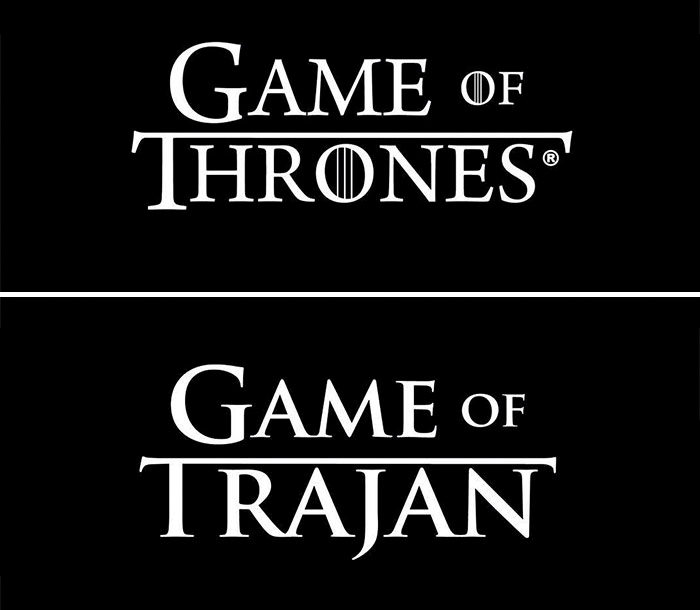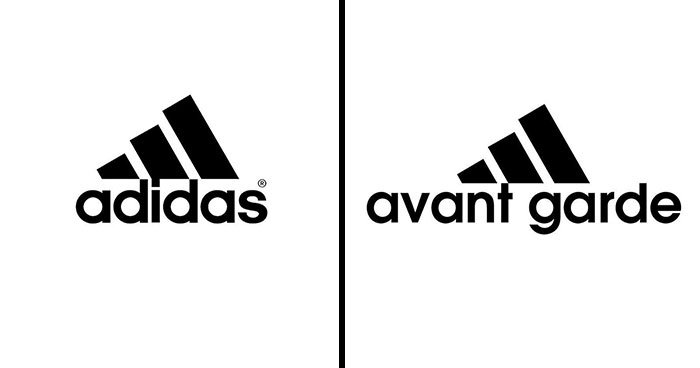
Artist Reveals What Fonts Were Used To Design Famous Logos (30 Pics)
There is no doubt that a logotype is the face of the company; that‘s why each element of some of the most iconic and well-recognizable logos is carefully thought out, even though they might seem simple. Often, simplicity is the key. Selecting the right typeface and font for a logo is crucial and combined with size, color, and graphic elements can help you stand out in a competitive environment. Each font can communicate a specific personality and tone—this is why it‘s particularly important to go with something that perfectly represents the brand‘s identity. Some brands use well-known and time-approved fonts such as Helvetica, Arial, and Gotham, while others create their custom designs often based on or inspired by classic fonts.
The Italian graphic designer, or logo guru, as one might say, Emanuele Abrate, runs an Instagram account all about logotypes. Last time we featured the artist on Bored Panda, he fixed the “World’s Worst Logos” (disclaimer: some of them are pretty ambiguous) by redesigning them in a more appropriate and sleek way. This time, he shows what fonts some of the most popular brands chose to represent them by replacing names in logos with logo fonts.